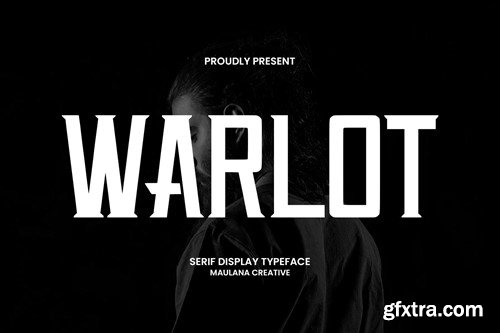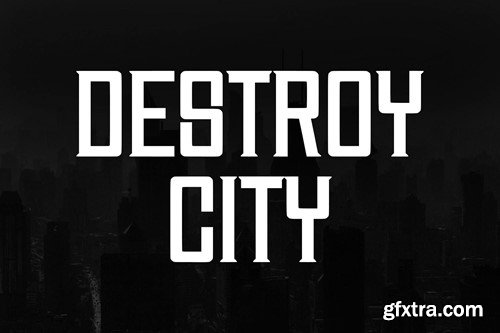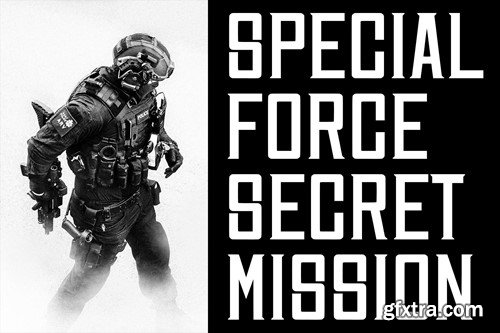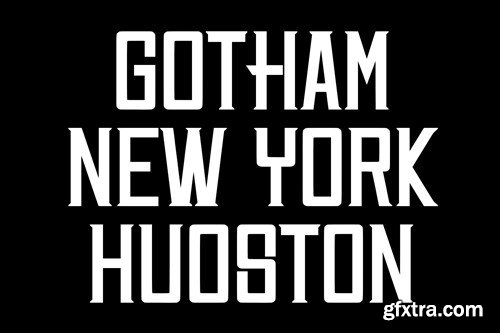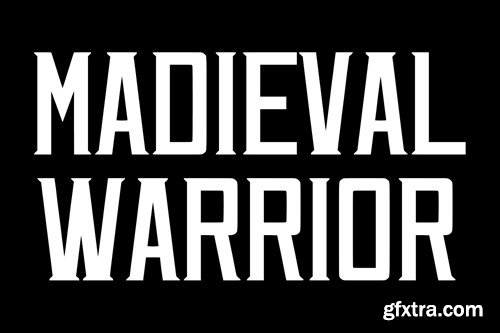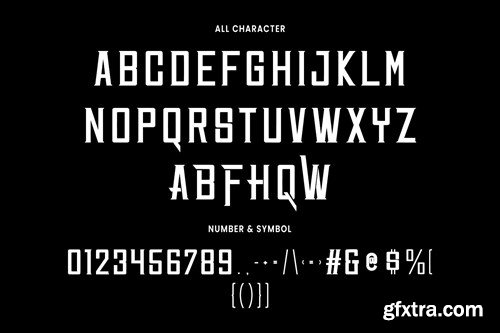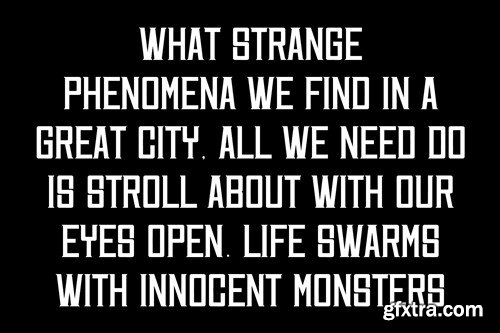
WARLOT Decorative Serif Display Font ZUVX84F
Warlot Decorative Serif Display Font
Warlot is a decorative serif display font. Bold stroke, fun character with a bit of ligatures and stylistic. To give you an extra creative work. Warlot font support multilingual more than 100+ language. This font is good for logo design, Social media, Movie Titles, Books Titles, a short text even a long text letter and good for your secondary text font with script or serif. Make a stunning work with Warlot font. What you get: Cheers, Maulana Creative